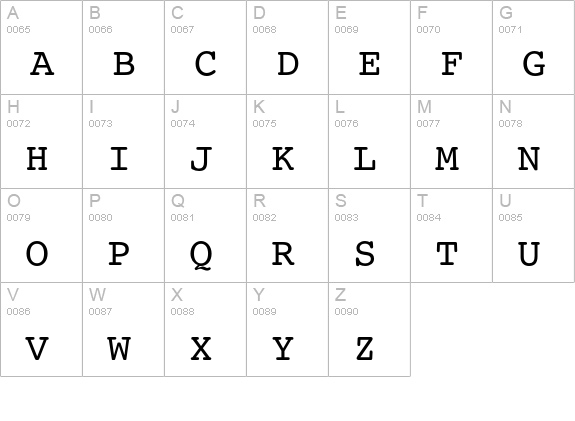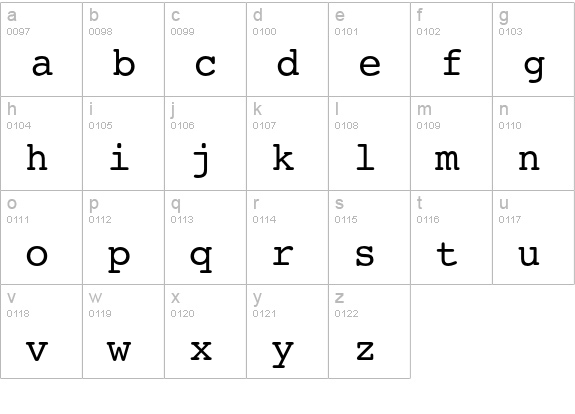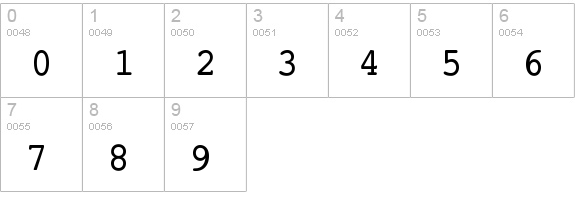
Courier 10 Pitch is a classic monospaced font that exudes a sense of reliability and professionalism. Its clean and simple design makes it ideal for any project requiring a no-nonsense approach to typography. With its fixed-width characters and easy readability, Courier 10 Pitch is perfect for use in documents, code snippets, and technical writing. The best part is that Courier 10 Pitch is completely free to download at FontsMarket.com. Whether you're a student, designer, or business professional, this versatile font is a valuable addition to your font library. Don't miss out on the opportunity to enhance your projects with the timeless appeal of Courier 10 Pitch – download it today and see the difference it can make!